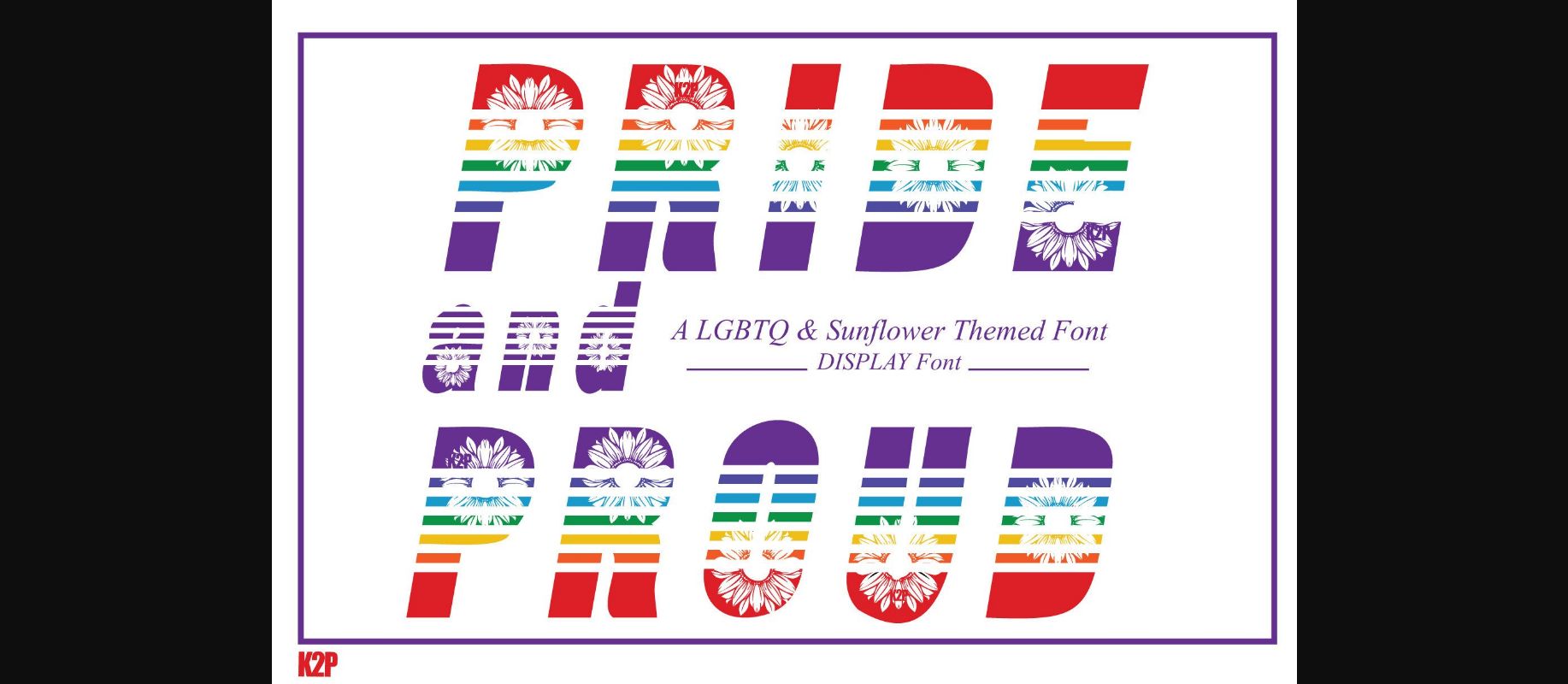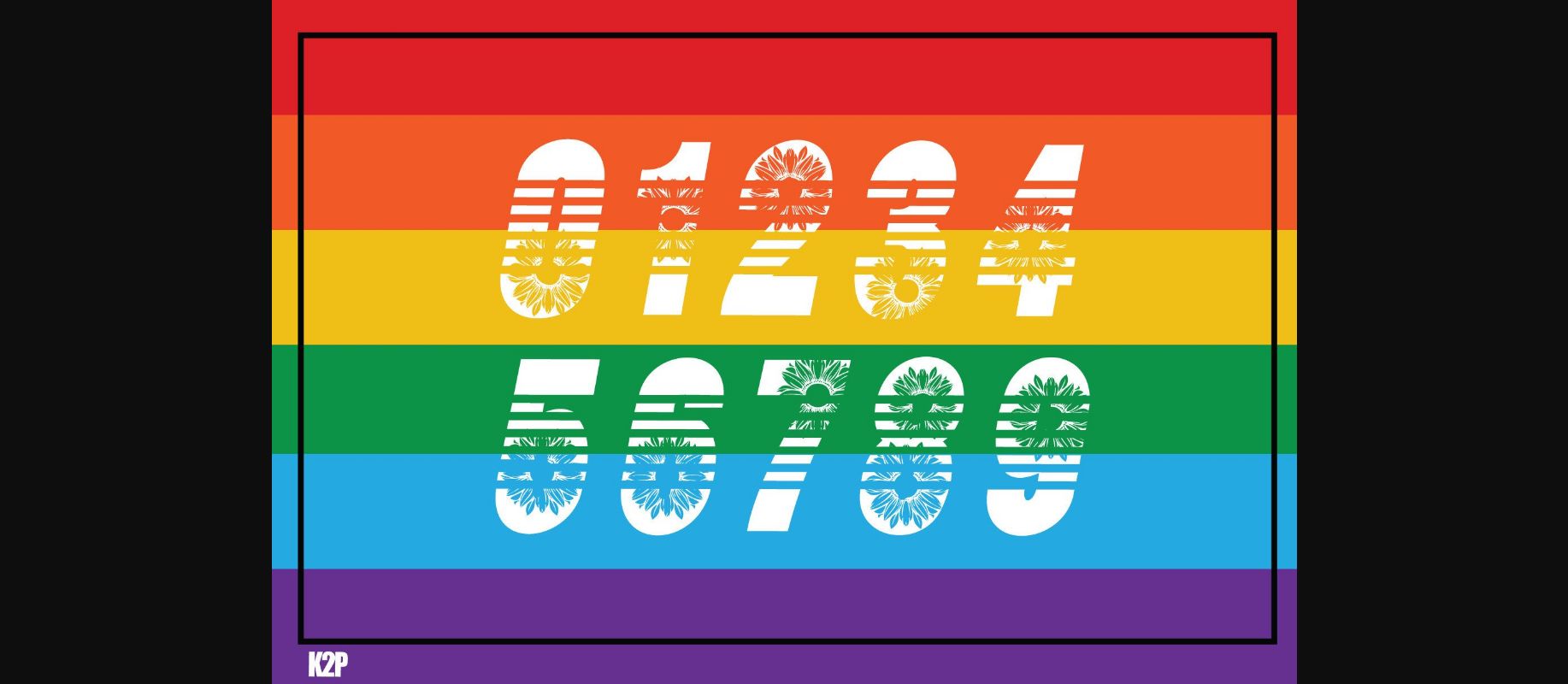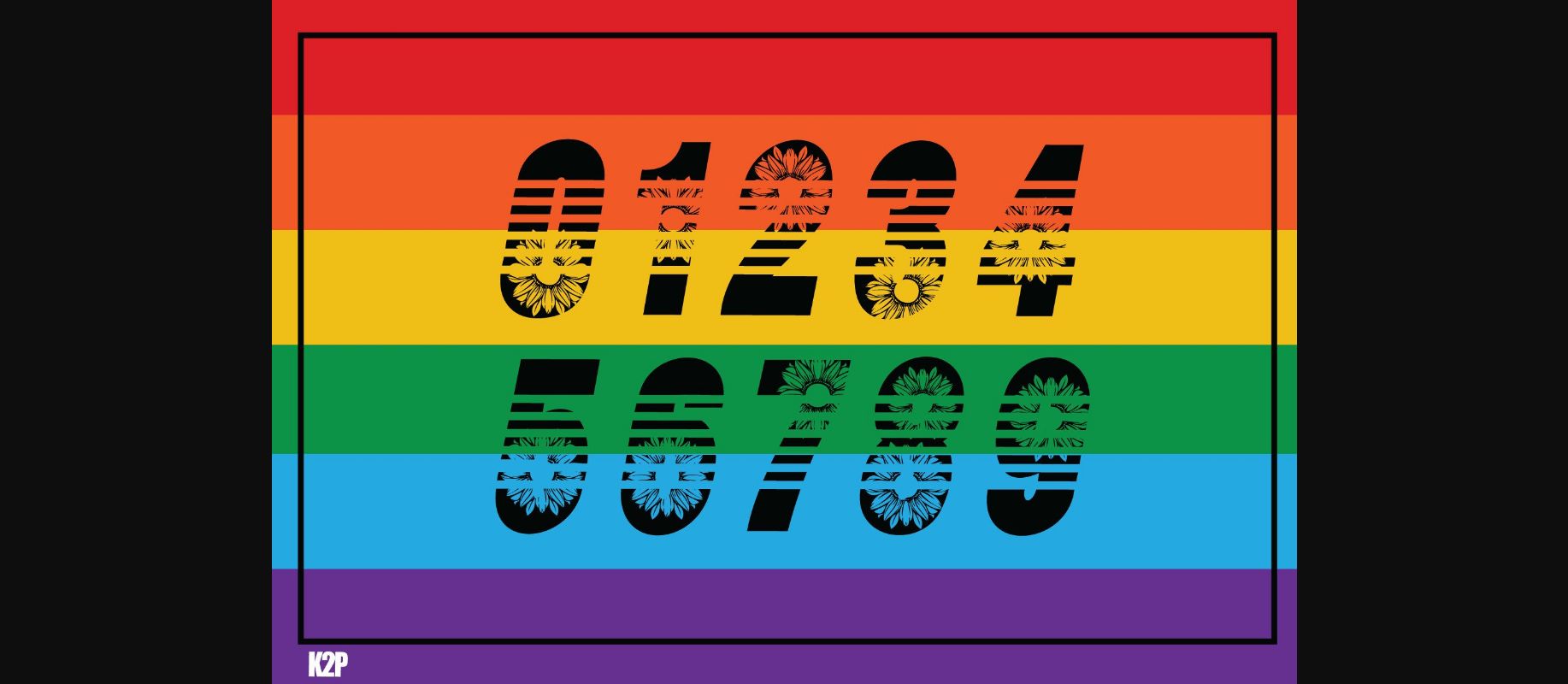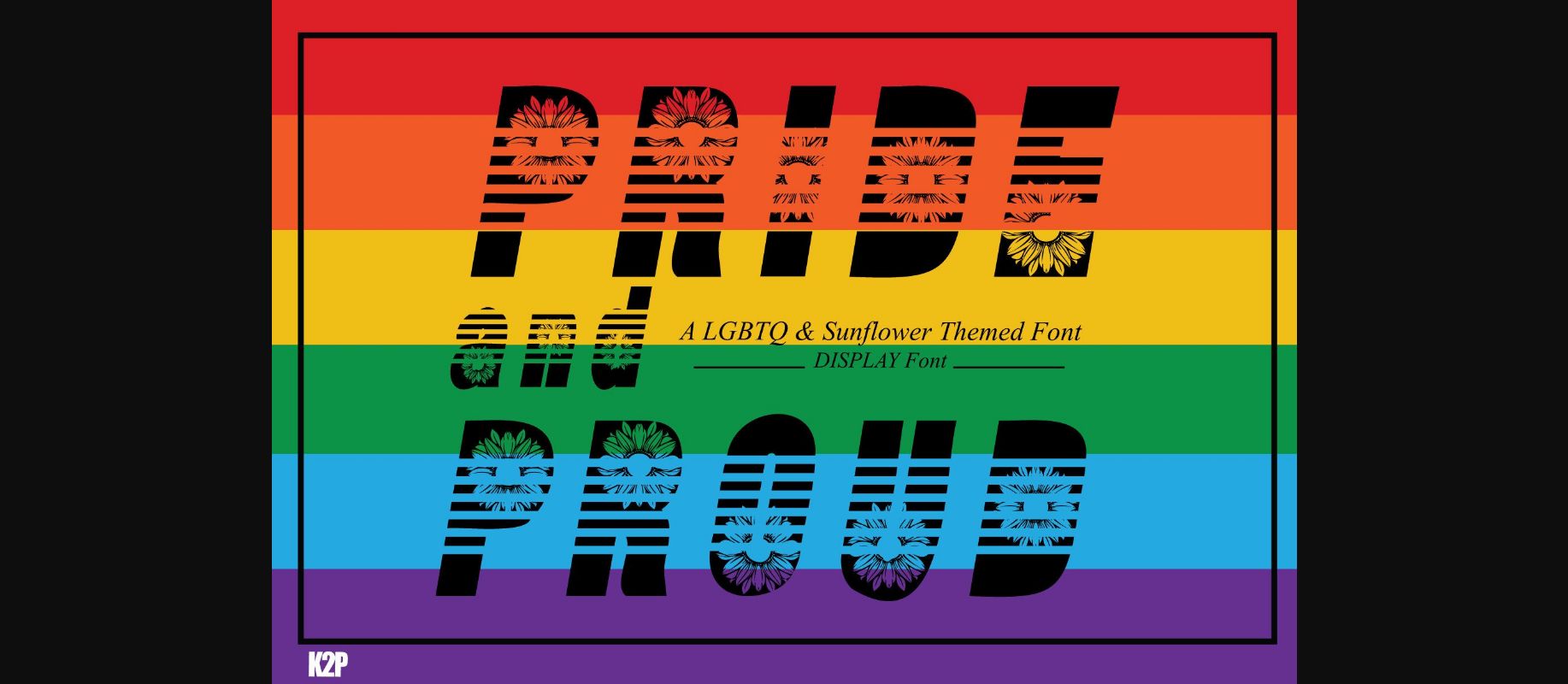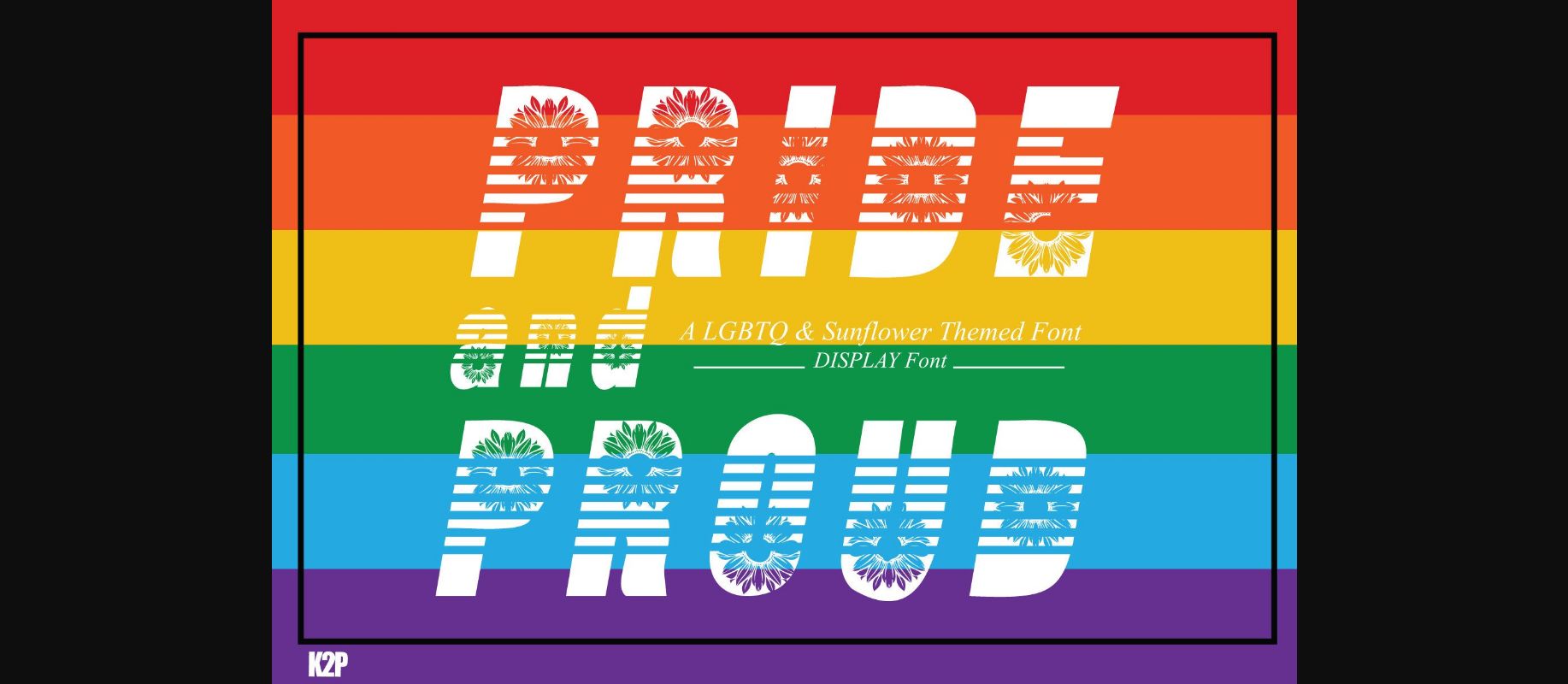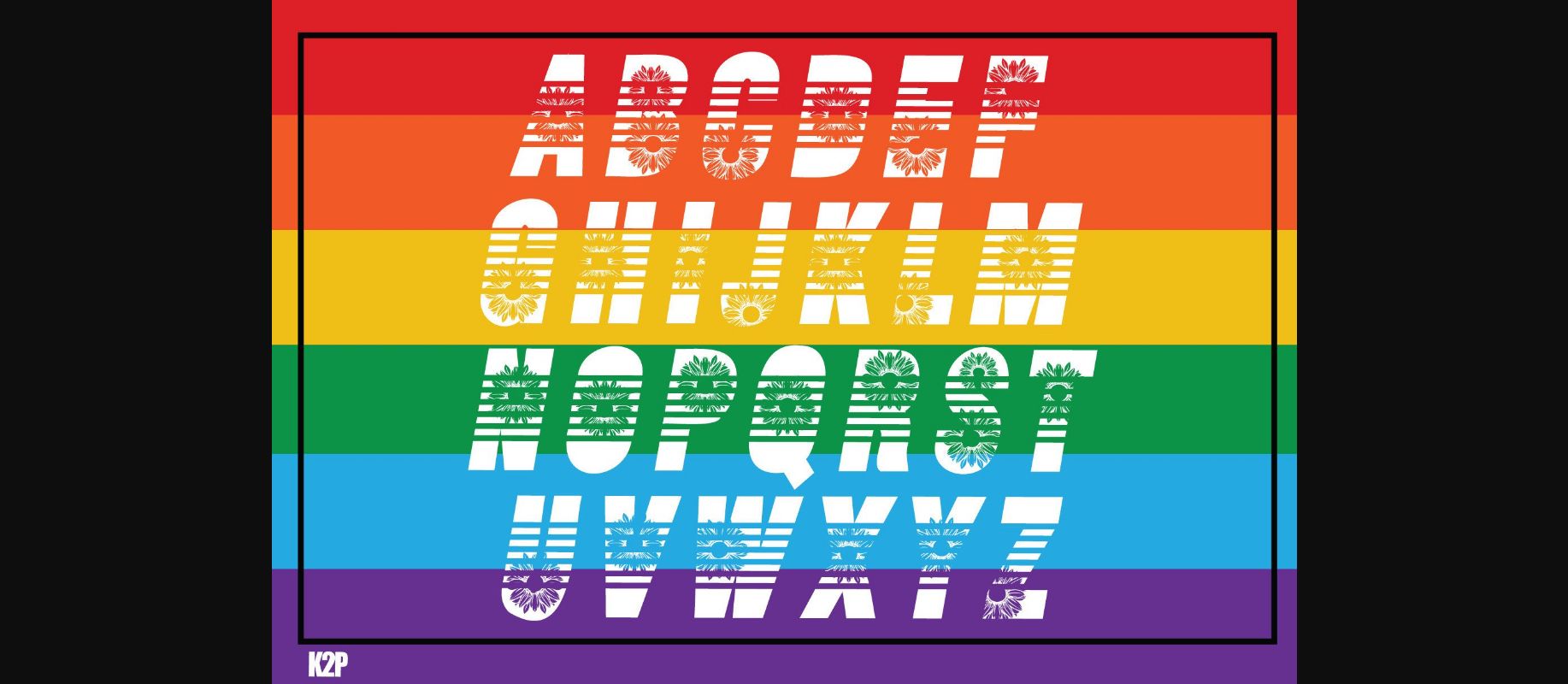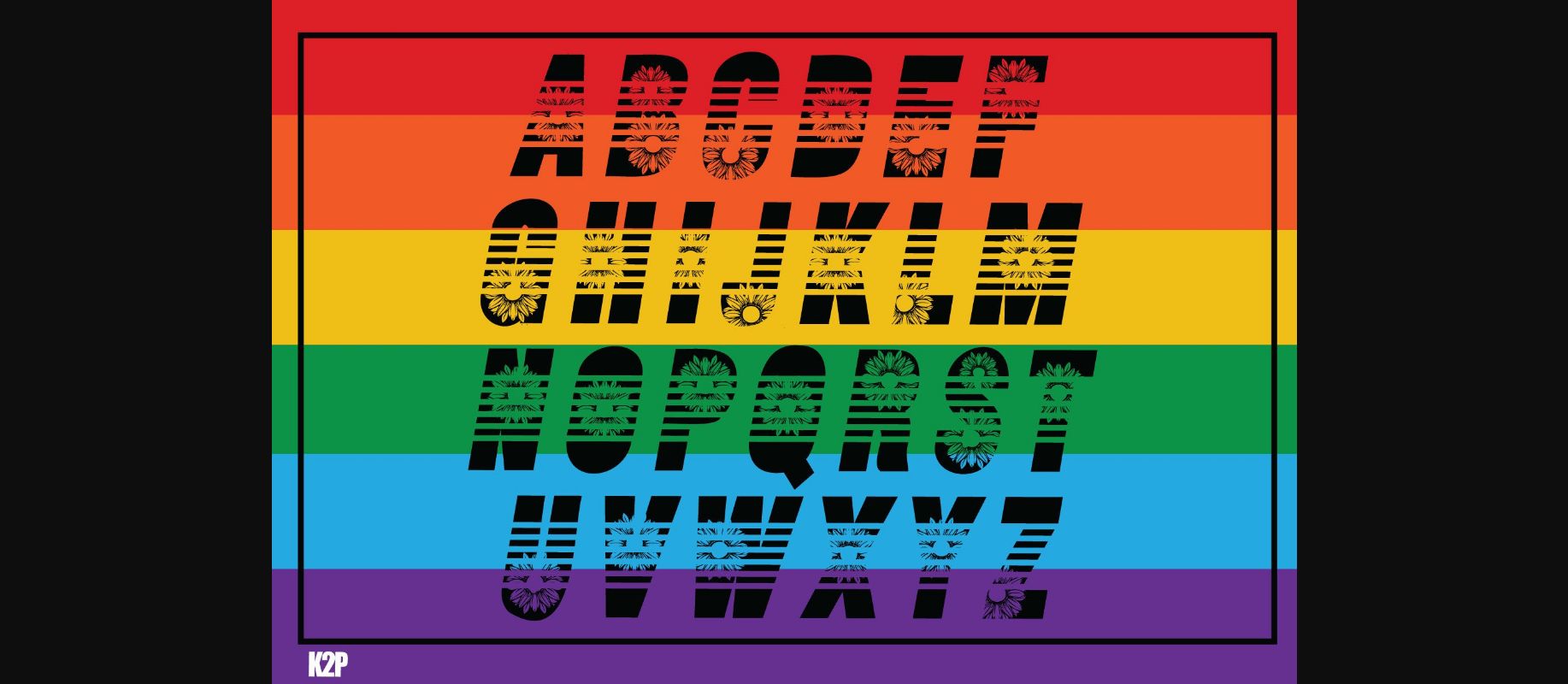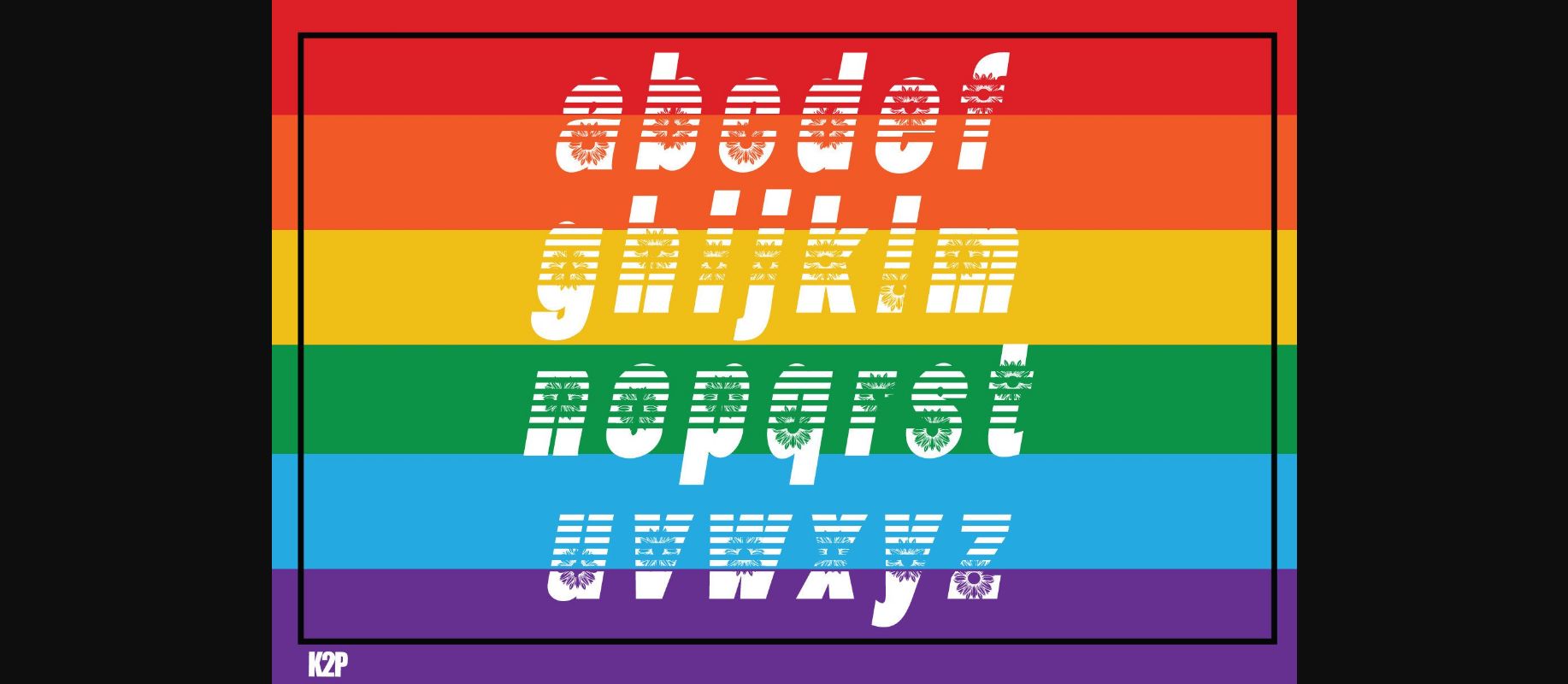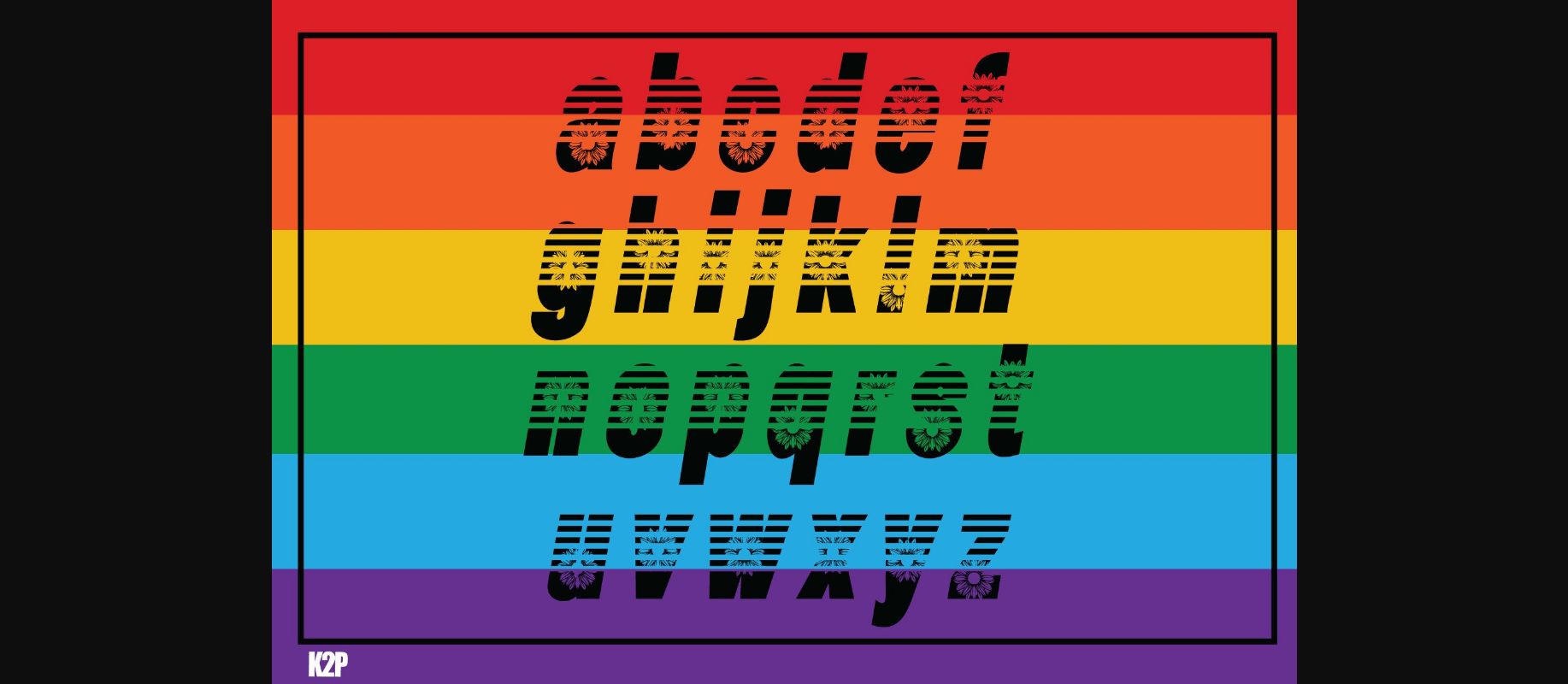
Pride and Proud Font
About Pride and Proud Font
Pride and Proud is a bold, incredibly cool, and assertive display font. It will look stunning on any poster flyer or print.